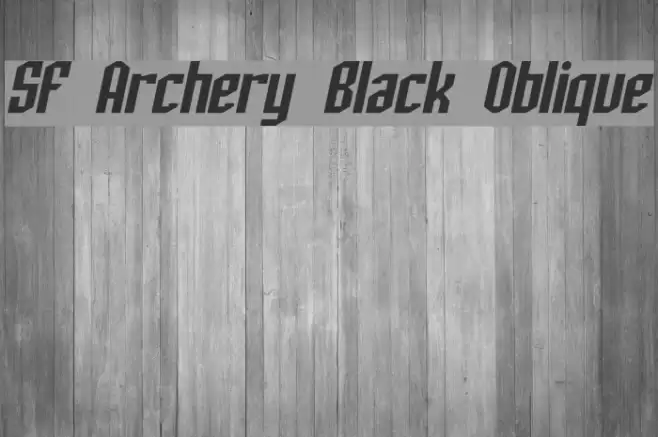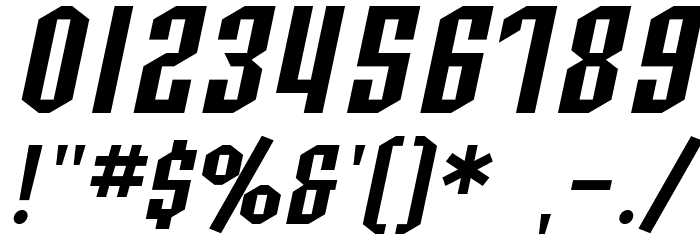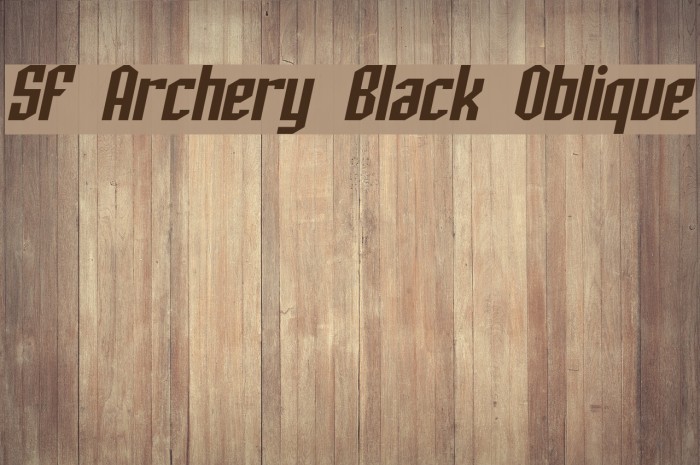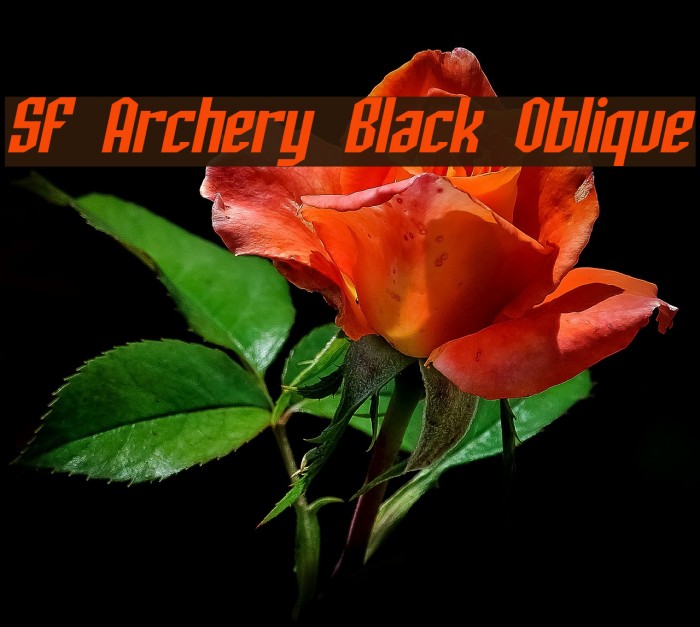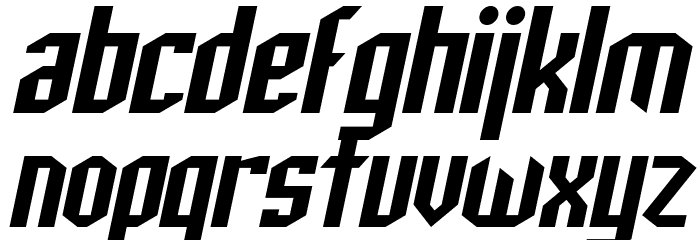
SF Archery Black Oblique Font
SF Archery Black Oblique Description
This font features a bold and dynamic style with an oblique slant, giving it a sense of motion and energy. The characters are sharply angled, creating a modern and aggressive appearance. The uppercase and lowercase letters maintain a consistent weight, contributing to a cohesive look. The numbers and special characters follow the same stylistic cues, ensuring uniformity across all glyphs. The font's design is ideal for projects that require a strong visual impact, such as sports branding, posters, or dynamic headlines. Its boldness and slanted form make it stand out, while the consistent character shapes provide readability.
A bold, oblique font with a dynamic and modern style from Gothic fonts.
- Proposed Projects: Ideal for sports branding, posters, dynamic headlines, and any project needing a strong visual impact.